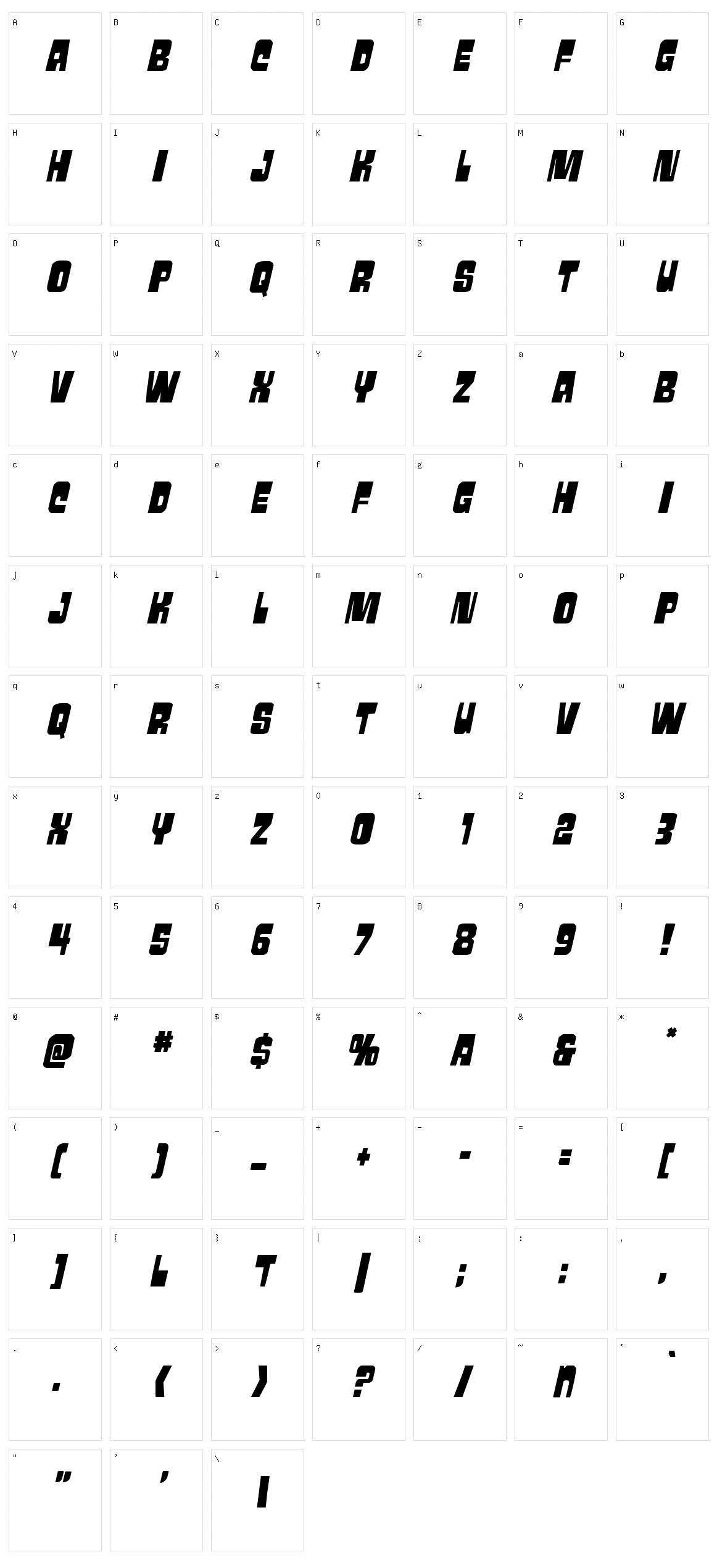
This font comes with the following 29 versions: Regular, Italic, Semi-Italic, Super-Italic, Semi-Leftalic, Semi-Leftalic, Super-Leftalic, Spaced, Spaced Italic, Condensed, Condensed Italic, Expanded, Expanded Italic, Wide, Wide Italic, 3D, 3D Italic, Gradient, Gradient Italic, Rotated, Rotated 2, Rotalic, Rotalic 2, Wavy, Wavy Italic, Wavy 2, and Wavy 2 Italic.